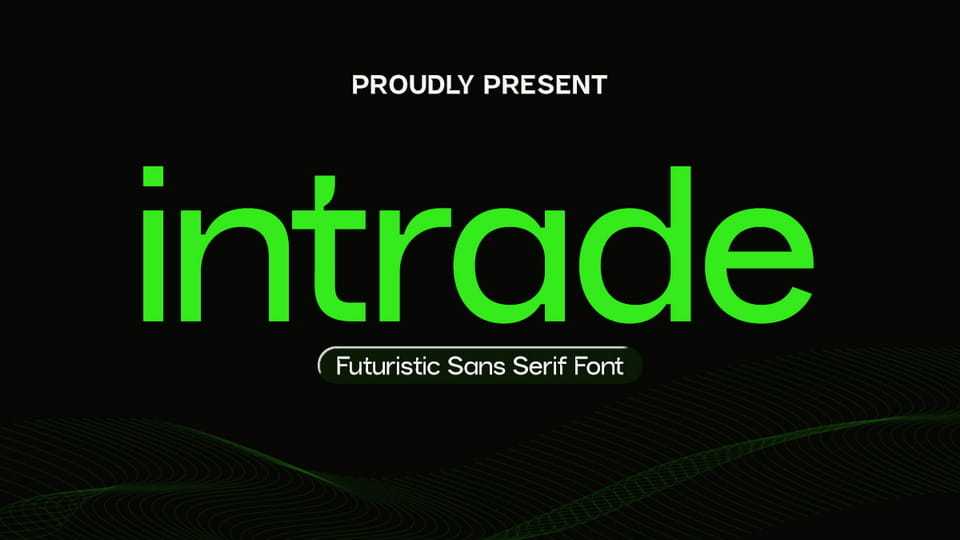
Download Intrade font, a futuristic sans serif typeface designed to capture the essence of modern technology and digital innovation. With its clean geometric structure and smooth curves, Intrade delivers a sleek and forward-thinking aesthetic